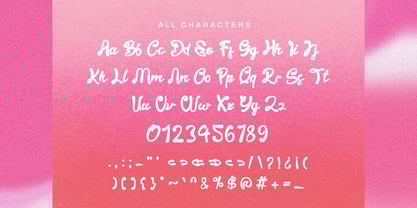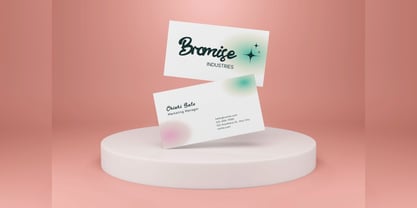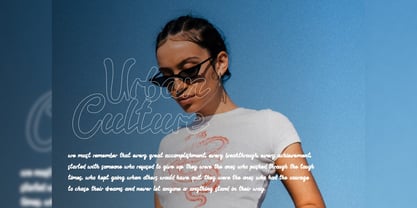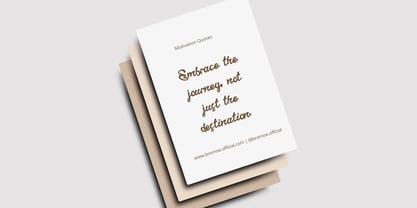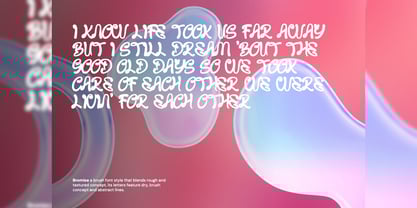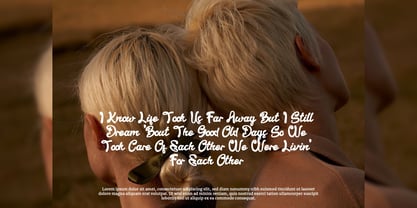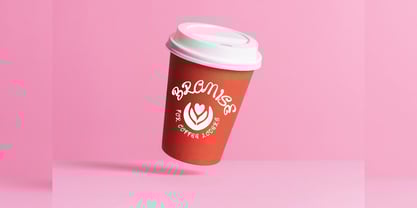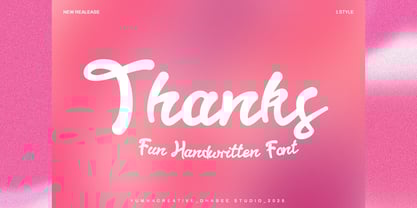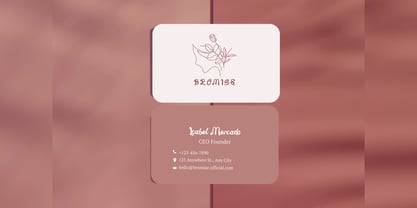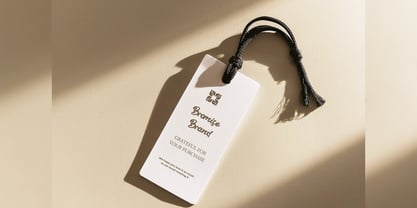
Bromise
by Yumnacreative
The Bromise Font Family was designed by Dhimas Habibie and published by Yumnacreative. Bromise contains 1 styles. More about this family
Introducing Bromise - Fun Handwritten Font
This Font is a delicate, elegant and flowing handwritten font. it with a and little swirly embedding, so that a modern font is formed and ready to make a statement by adding elegant and unique flair to your next design project. Add it to your most creative ideas and notice how it makes them come alive!
- Uppercase and Lowercase letters
- Numbering and Punctuations
Designers: Dhimas Habibie
Foundry: Yumnacreative